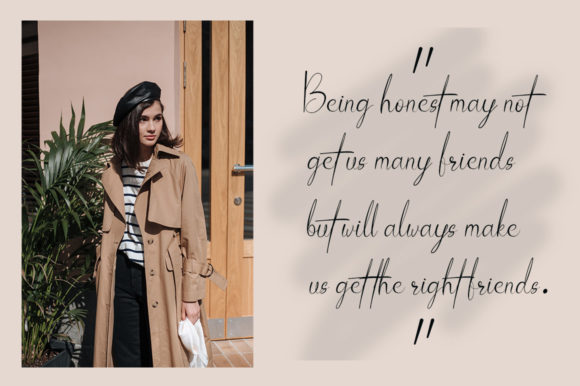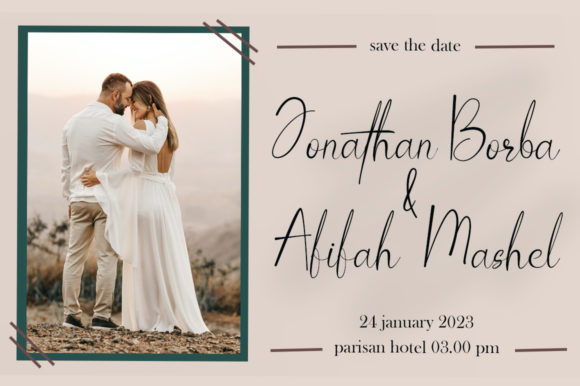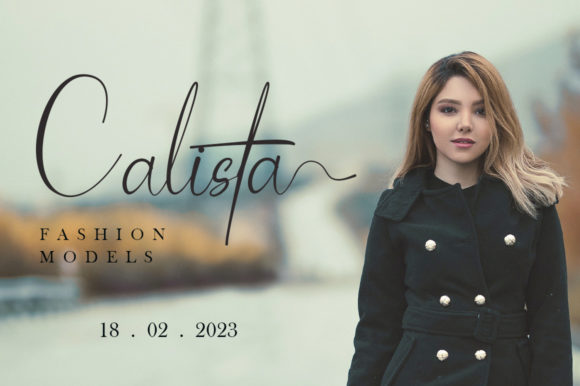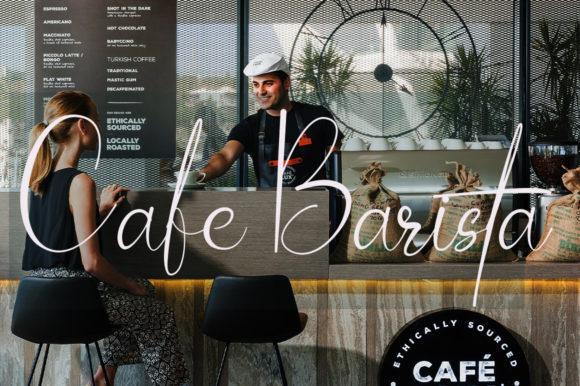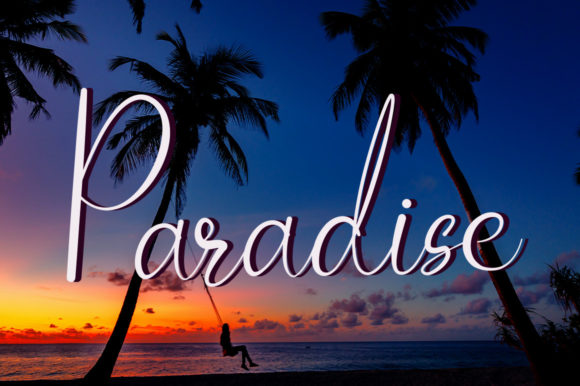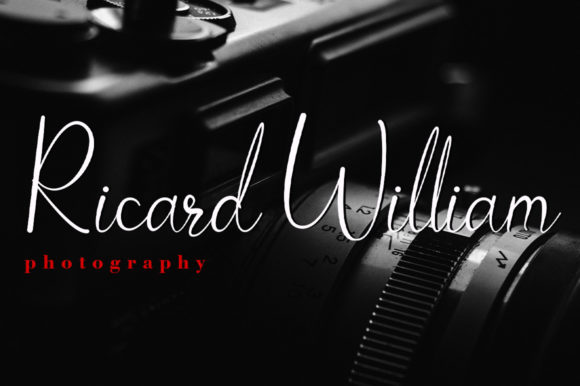
Introducing Angelina Font: Elevate Your Designs with Elegance and Sophistication
In the world of design, typography plays a crucial role in conveying the tone and aesthetic of a project. For designers and crafters seeking a font that exudes elegance and sophistication, Angelina Font is an exceptional choice. This free-flowing script font is meticulously crafted to add a touch of high-quality vibes to various design projects, including packaging products, invitation cards, flyers, mockups, event posters, and more.
Key Features of Angelina Font
- Free-Flowing Script Style: Angelina Font boasts a beautiful, fluid script style that effortlessly enhances the visual appeal of any design. Its elegant flow makes it perfect for projects that require a touch of sophistication.
- Balanced Character: One of the standout features of Angelina Font is its balanced character. Each letter is carefully designed to ensure harmony and consistency, making it an excellent fit for large design pools.
- PUA Encoding: Angelina Font is PUA (Private Use Area) encoded, which means that accessing glyphs and swashes is straightforward. This feature allows designers to explore a wide range of typographic possibilities, making their designs more dynamic and engaging.
- Versatility: The versatility of Angelina Font is one of its most compelling attributes. It can be used across a variety of projects, from delicate invitation cards to bold event posters, and from detailed packaging products to captivating flyers and mockups.
Applications of Angelina Font
Angelina Font’s adaptability makes it an invaluable asset for designers and crafters working on a multitude of projects. Here are some of the key areas where this font truly shines:
- Packaging Products: For brands looking to make a statement with their packaging, Angelina Font offers a stylish and sophisticated solution. Its elegant appearance can elevate product labels, boxes, and bags, ensuring that the packaging aligns with the brand’s high-quality image.
- Invitation Cards: When it comes to creating memorable invitations, the font used can significantly impact the overall feel of the invite. Angelina Font’s beautiful script style makes it perfect for wedding invitations, birthday parties, and other special occasions, adding a touch of class and elegance.
- Flyers and Brochures: For marketing materials like flyers and brochures, Angelina Font can be used to create eye-catching headlines and captivating content. Its readability and aesthetic appeal ensure that the message is conveyed effectively while engaging the reader.
- Mockups and Event Posters: When creating mockups or designing event posters, the choice of font can make or break the visual impact. Angelina Font, with its high-quality vibes, is ideal for these applications, adding a level of sophistication and professionalism to the design.
Tips for Using Angelina Font Effectively
To make the most of Angelina Font, consider the following tips:
- Pair with Complementary Fonts: While Angelina Font is stunning on its own, pairing it with complementary fonts can enhance its beauty. Choose fonts that contrast yet complement its script style to create visually appealing designs.
- Experiment with Sizes and Colors: Don’t be afraid to experiment with different sizes and colors. Angelina Font’s elegance shines through in various sizes, and its beauty can be further accentuated with the right color choices.
- Utilize Glyphs and Swashes: Take full advantage of Angelina Font’s PUA encoding by exploring the range of glyphs and swashes available. These elements can add a unique touch to your designs, making them stand out.
| Author | febi studio |
Angelina Font is a versatile and elegant script font that can elevate a wide range of design projects. Its free-flowing style, balanced character, and PUA encoding make it an excellent choice for designers and crafters looking to add a touch of sophistication to their work. Whether you’re creating packaging products, invitation cards, flyers, mockups, or event posters, Angelina Font is sure to deliver high-quality vibes that captivate and engage. Embrace the beauty of Angelina Font in your designs and discover the difference it can make.